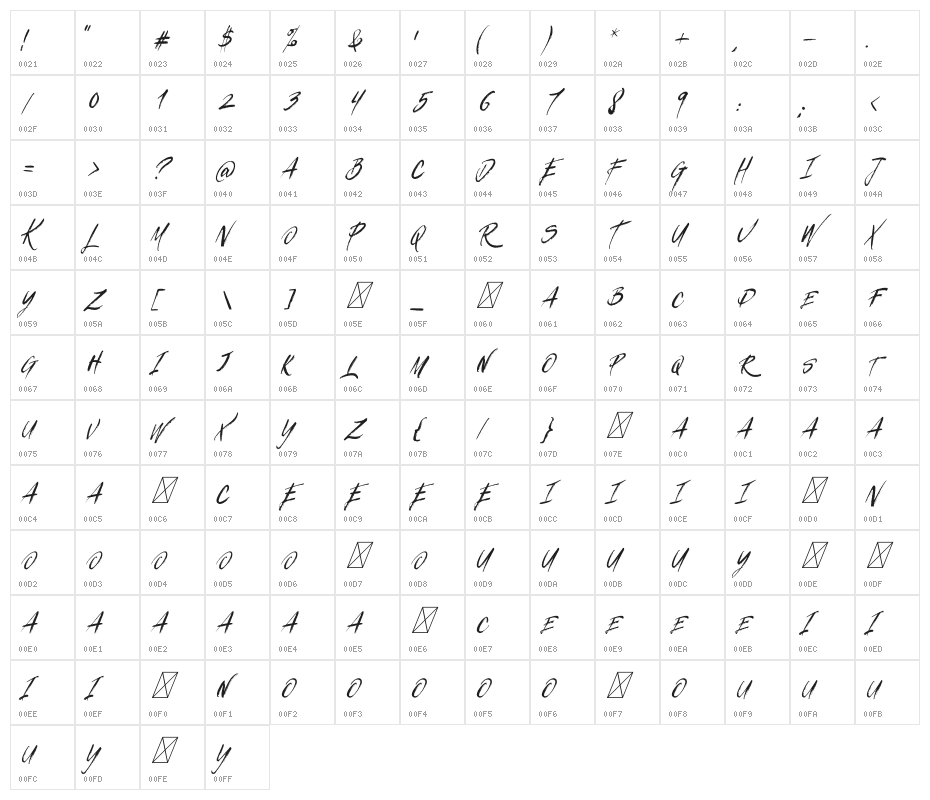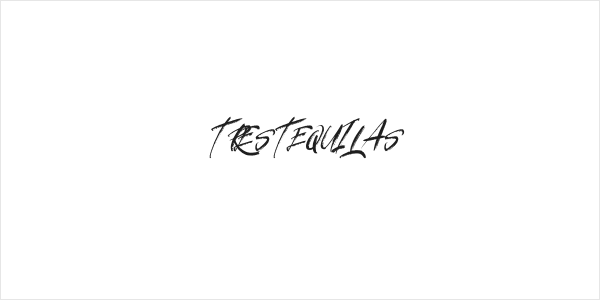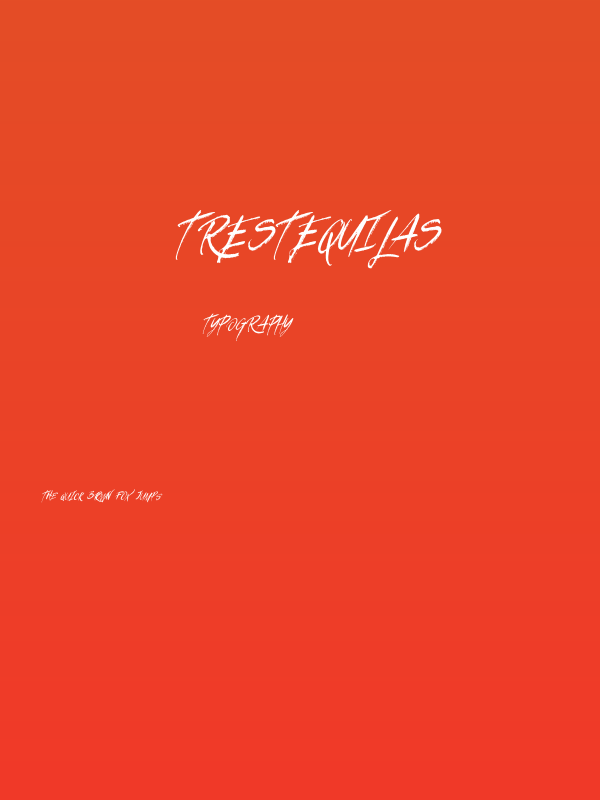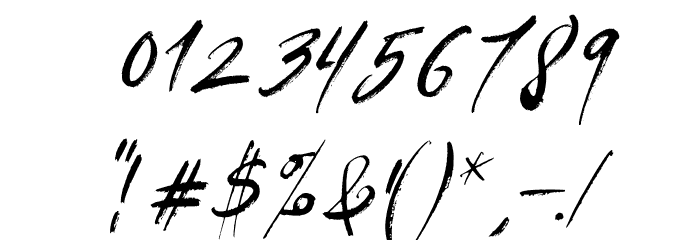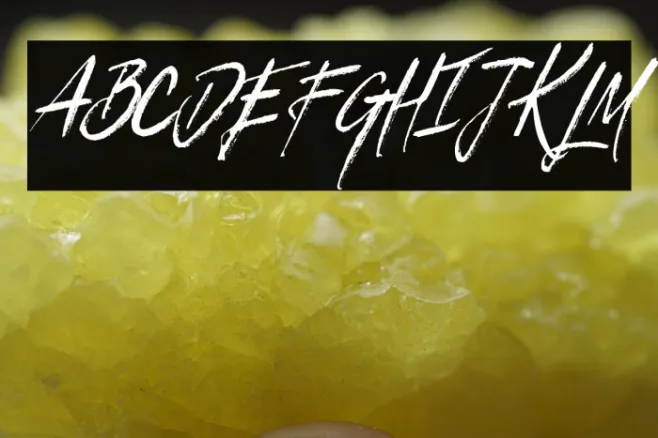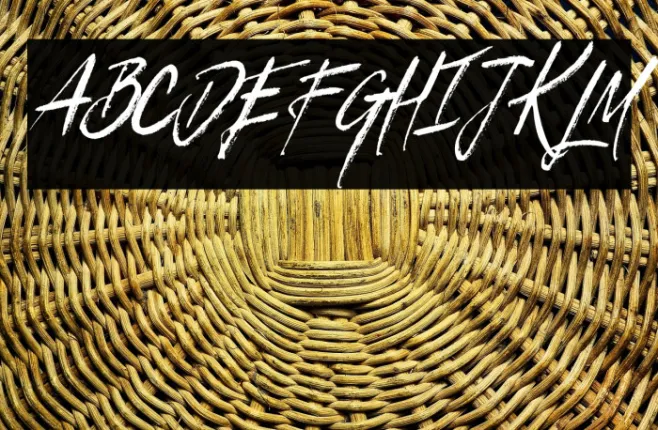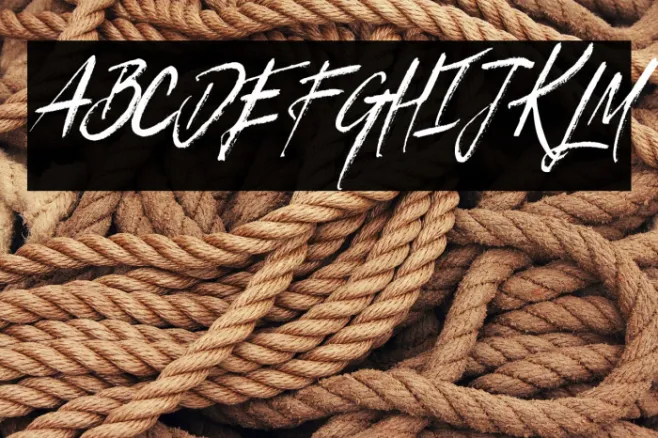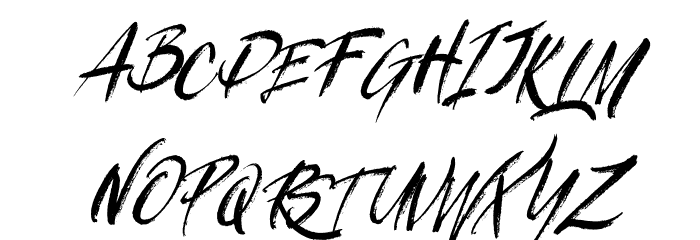
TresTequilas Font
TresTequilas Description
This font exudes a dynamic and energetic style, characterized by its brush-like strokes and fluid motion. The letters are crafted with a sense of spontaneity, giving it a hand-painted appearance. The uppercase and lowercase letters maintain a consistent style, with sharp angles and varying stroke widths that add to its expressive nature. The numerals and special characters follow the same artistic approach, ensuring a cohesive look across all elements. This font is ideal for projects that require a bold and artistic touch, such as posters, branding, or creative headlines.
| Use Case | Headlines, Logos, Artistic projects |
| Proposed Projects | Ideal for posters, branding, creative headlines, and artistic projects. |